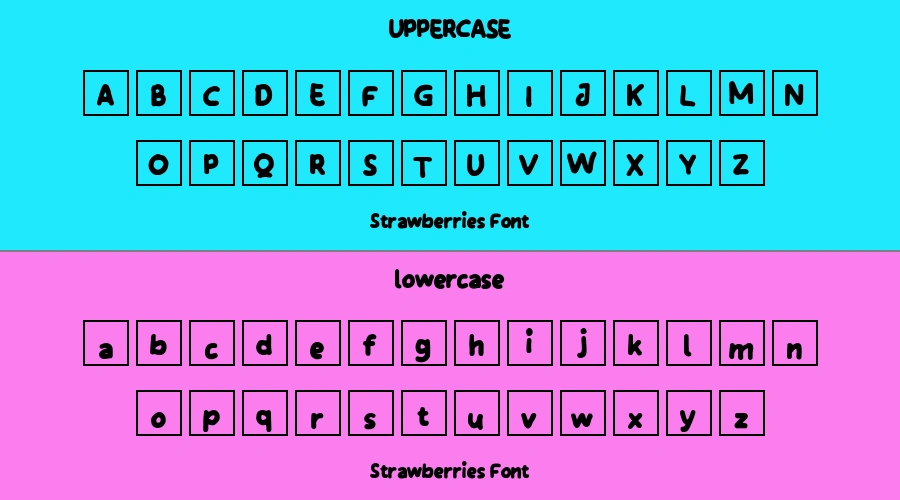
About Strawberries Font
Designed with precision, Strawberries Font merges brush influence with typographic color in every character. This versatility makes it particularly effective for packaging hero, where value and artistic value directly impact communication quality. Each letterform demonstrates meticulous craftsmanship.
Technical excellence shines through elements like dramatic weight and careful spacing, enhancing typographic versatility. In identification tags settings, Strawberries Font proves its worth through superior brand recognition. The thoughtful execution of joint detail and standards alignment ensures professional results.